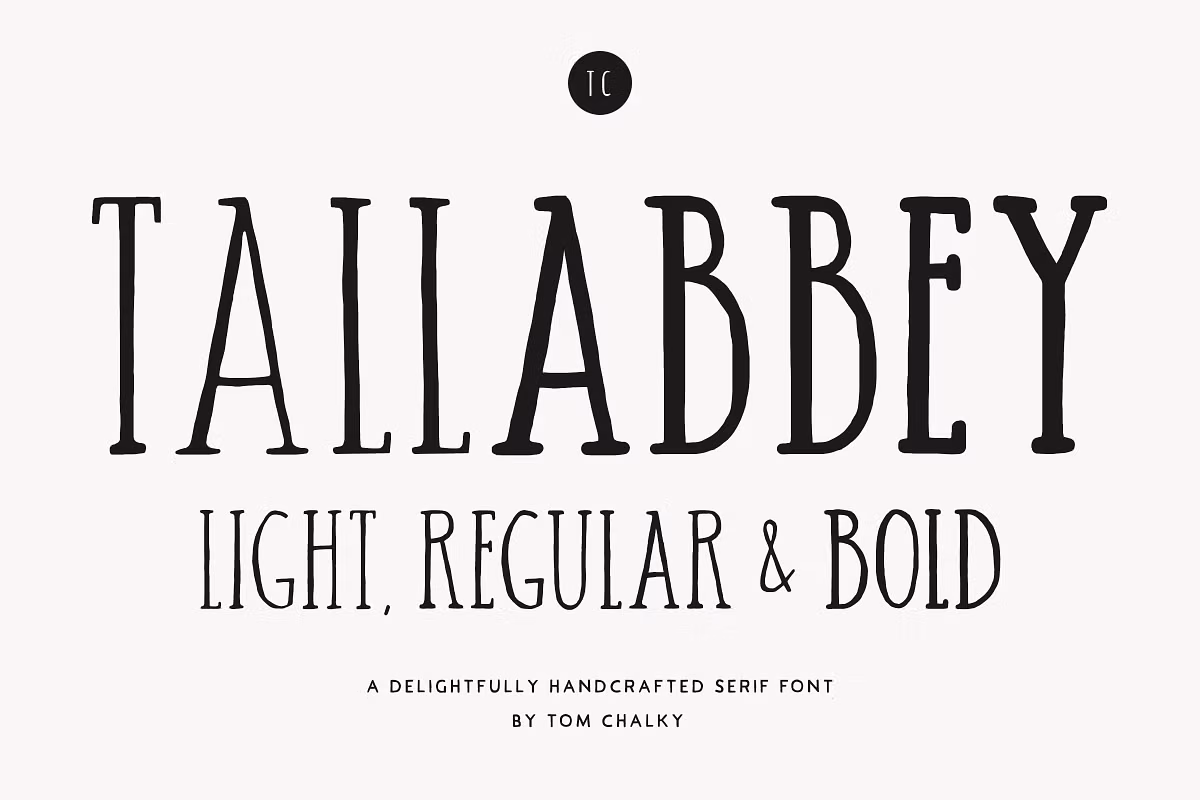
Tall Abbey Serif - Handwritten Font Free Download
Tall Abbey Serif - Handwritten Font Free Download is a stylish and sophisticated typeface that combines the elegance of serif design with the charm of handwritten strokes. With its tall letterforms and unique handwritten flourishes, Tall Abbey is perfect for branding, wedding invitations, editorial layouts, and other projects that need a personal, refined touch.
Tall Abbey Serif - Handwritten Font Free Download offers a sophisticated balance between classic serifs and the fluidity of handwritten style, making it a versatile choice for upscale designs that require both personality and professionalism. Whether you're crafting a logo, designing an elegant invite, or working on a creative project, Tall Abbey adds beauty and individuality to your typography. Download it today and bring a handwritten charm to your designs with Tall Abbey.